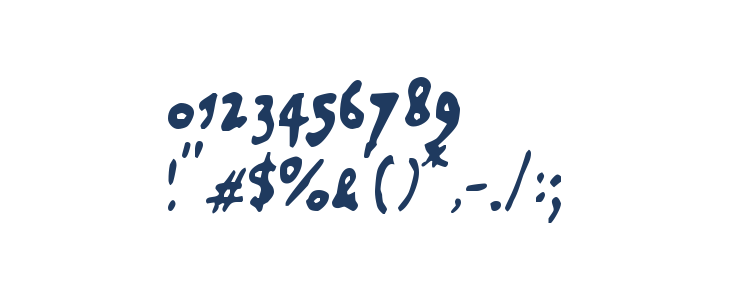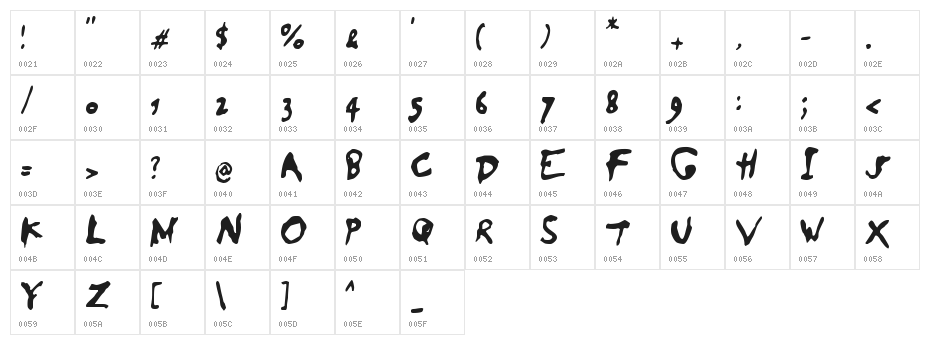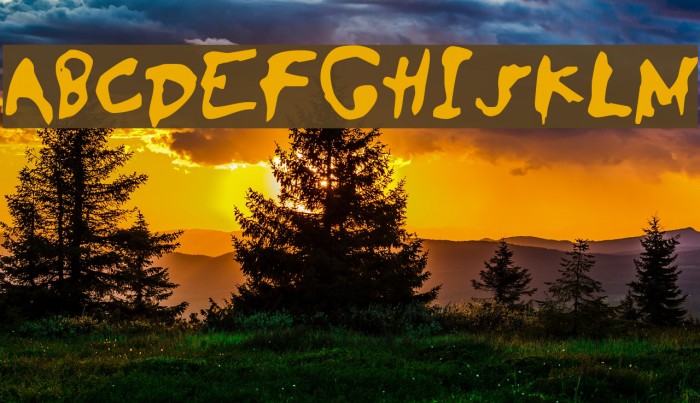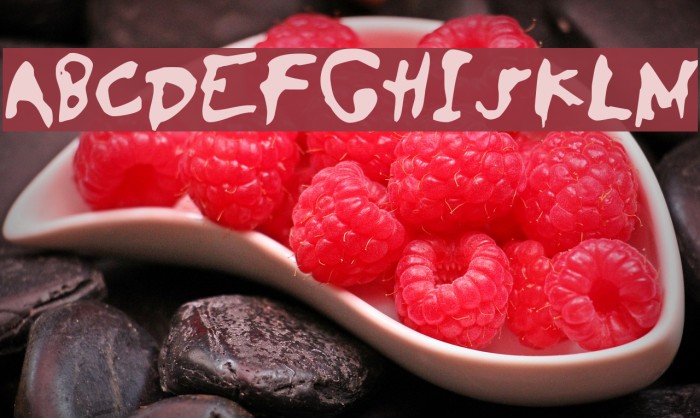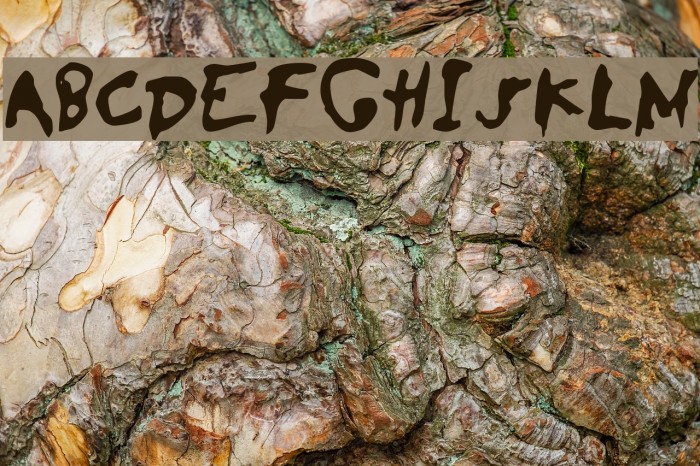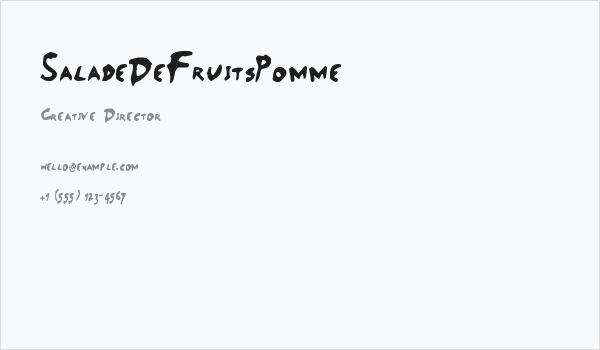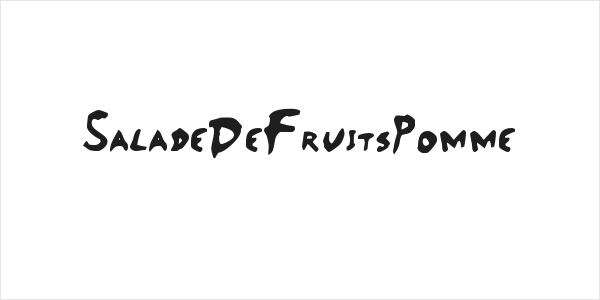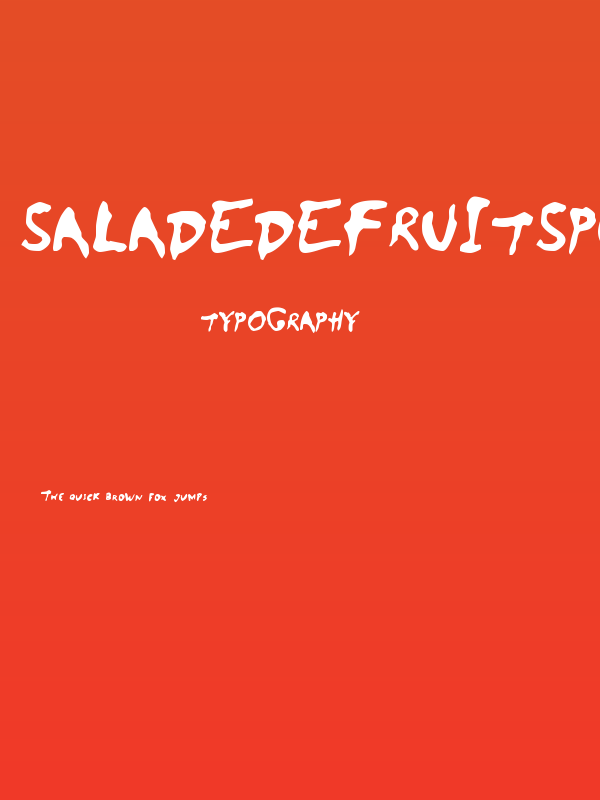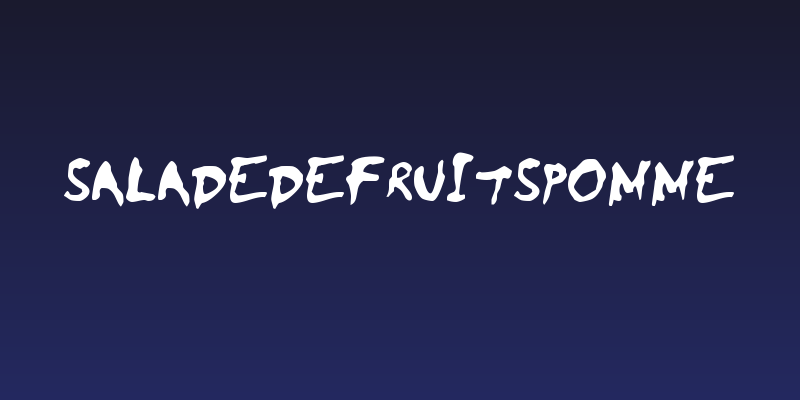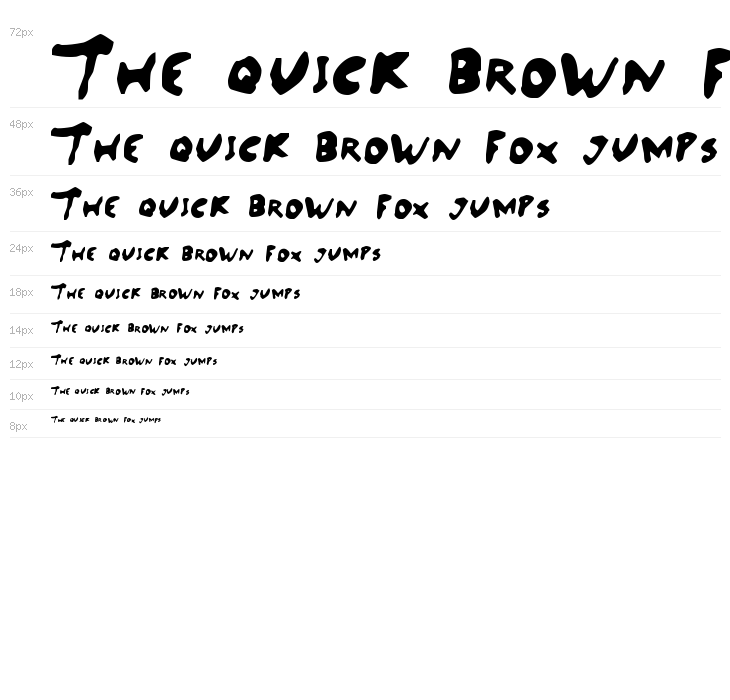
SaladeDeFruitsPomme Font
SaladeDeFruitsPomme Description
This font features a bold, expressive style with a hand-drawn appearance. The characters are irregular and dynamic, giving a sense of movement and energy. The uppercase and lowercase letters maintain a consistent style, with exaggerated curves and varying stroke widths that add to its playful and artistic nature. The numbers and special characters follow the same aesthetic, making the font versatile for creative projects. Its unique design is suitable for eye-catching headlines and artistic displays.
| Use Case | Headlines, Logos, Artistic displays |
| Proposed Projects | Ideal for artistic posters, creative branding, children's book covers, and playful social media graphics. |